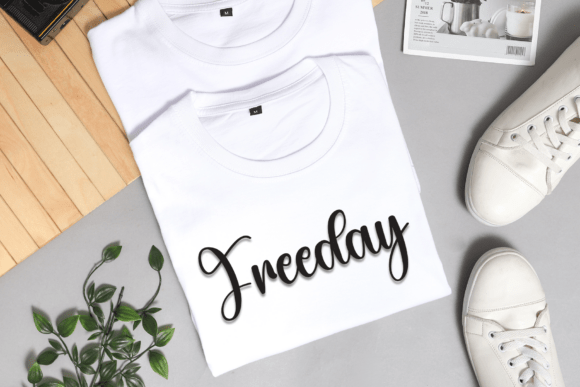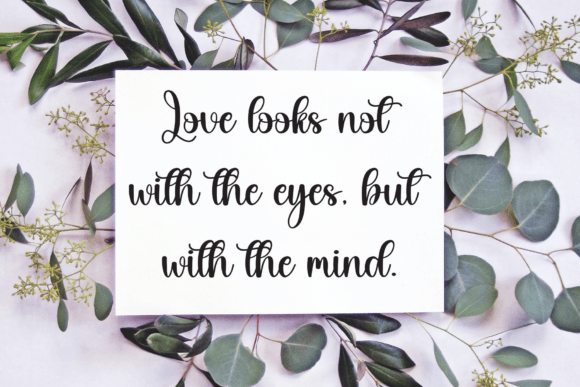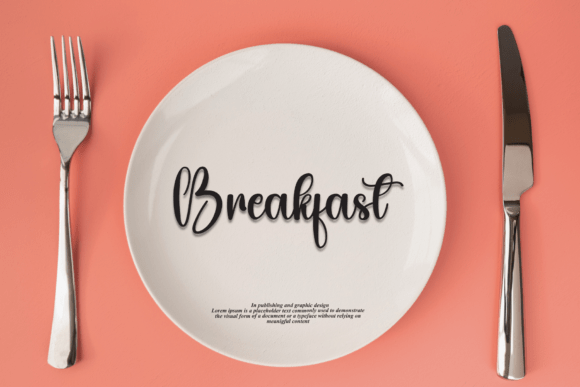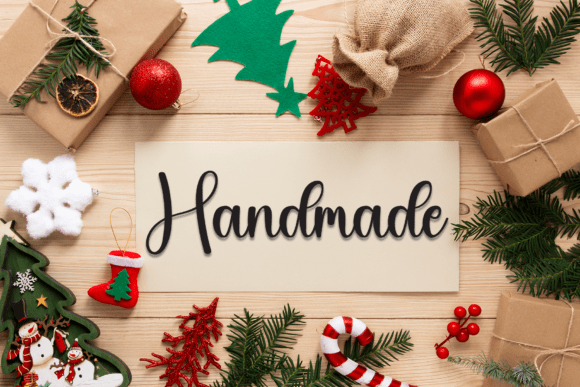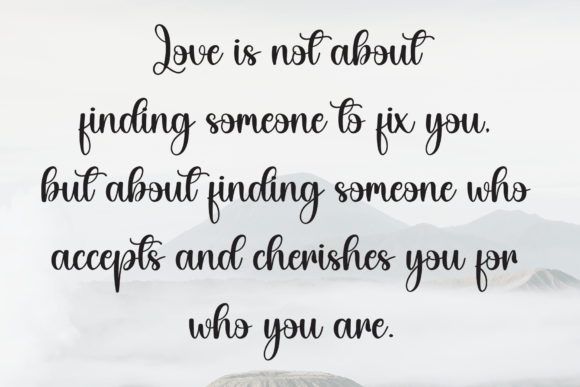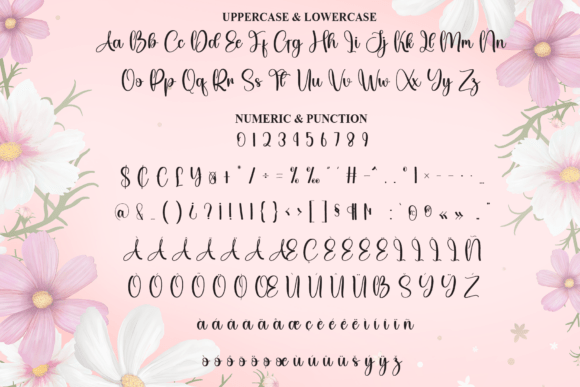
Elegance in Every Letter: The Beauty Font for Designers and Crafters
In the world of typography, few fonts capture the essence of elegance and charm as beautifully as the Beauty Font. This exquisite script font is designed to bring a touch of sophistication to any design, making it perfect for a variety of creative projects, from weddings and branding to social media and invitations.
The Characteristics of Beauty Font
What sets the Beauty Font apart is its smooth curves and graceful swashes, which elevate your text with a handwritten, romantic feel. The font’s elegant, flowing lines are meticulously crafted to convey a sense of luxury and refinement, making it an ideal choice for designers and crafters looking to add a personal and stylish flair to their work.
Perfect for Weddings and Special Occasions
Weddings, anniversaries, and other special occasions demand a level of sophistication and romance in their design elements. The Beauty Font delivers on this front, providing a beautiful, cursive script that can be used to create stunning wedding invitations, save-the-date cards, and even event signage. Its elegant appearance ensures that your wedding or event stationery stands out, setting the tone for a memorable and stylish celebration.
Enhancing Your Brand with Beauty Font
For businesses and brands, establishing a strong visual identity is crucial. The Beauty Font can play a significant role in this process, offering a sophisticated and luxurious feel that can elevate your brand’s image. Whether you’re designing a logo, packaging, or marketing materials, this font adds a touch of elegance that can help your brand stand out in a crowded marketplace.
Social Media and Digital Content
In the digital age, social media and online content have become essential platforms for communication and expression. The Beauty Font can be used to create eye-catching social media graphics, blog posts, and digital invitations that capture the attention of your audience. Its unique and stylish appearance ensures that your content stands out, making it more engaging and memorable.
Invitations and Personal Projects
Beyond its commercial applications, the Beauty Font is also perfect for personal projects and DIY crafts. Whether you’re creating custom invitations for a party, designing a monogram for your home decor, or crafting a heartfelt letter to a loved one, this font adds a personal touch that makes your project truly special.
Why Choose Beauty Font?
There are several reasons why designers and crafters choose the Beauty Font for their projects:
- Elegance and Sophistication: The font’s elegant, flowing lines and graceful swashes bring a level of sophistication to any design.
- Versatility: Suitable for a wide range of projects, from weddings and branding to social media and personal crafts.
- Romantic and Handwritten Feel: Adds a personal and stylish flair to your text, making it perfect for heartfelt quotes, love letters, and more.
- Easy to Read: Despite its elegant appearance, the Beauty Font remains clear and easy to read, making it functional as well as beautiful.
Tips for Using Beauty Font
To get the most out of the Beauty Font, consider the following tips:
- Pair with Complementary Fonts: Combine the Beauty Font with simpler, sans-serif fonts for contrast and visual interest.
- Use for Headlines and Quotes: Its elegant appearance makes it perfect for headlines, quotes, and short paragraphs.
- Experiment with Colors: While the font looks stunning in black or dark colors, don’t be afraid to experiment with soft pastels or metallic colors to match your design theme.
- Pay Attention to Spacing: The Beauty Font’s swashes and flowing lines can sometimes overlap. Adjust the spacing to ensure your text remains clear and readable.
The Beauty Font is a versatile and elegant script font that can elevate any design with its sophisticated and romantic feel. Whether you’re a designer working on a client’s project or a crafter creating something special for a personal occasion, this font offers the perfect combination of style, elegance, and charm. With its smooth curves, graceful swashes, and ease of use, the Beauty Font is sure to become a favorite in your typography arsenal.